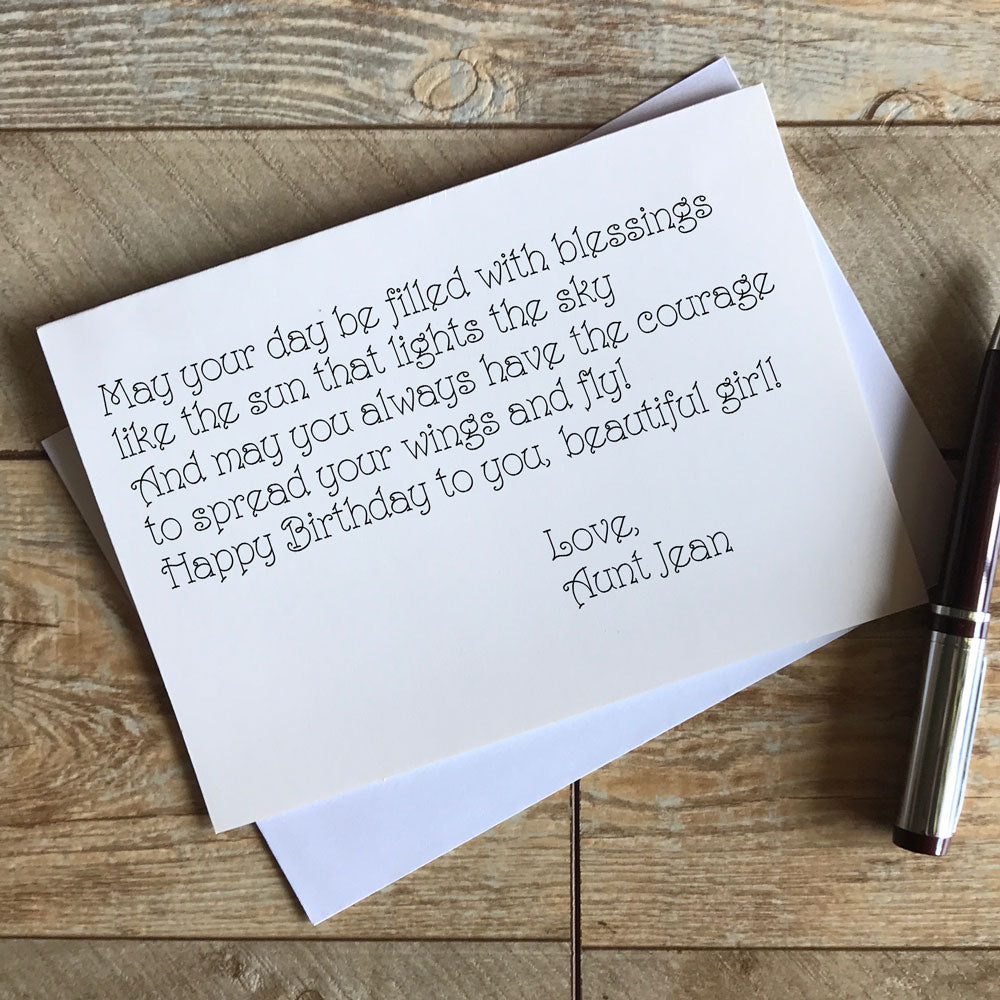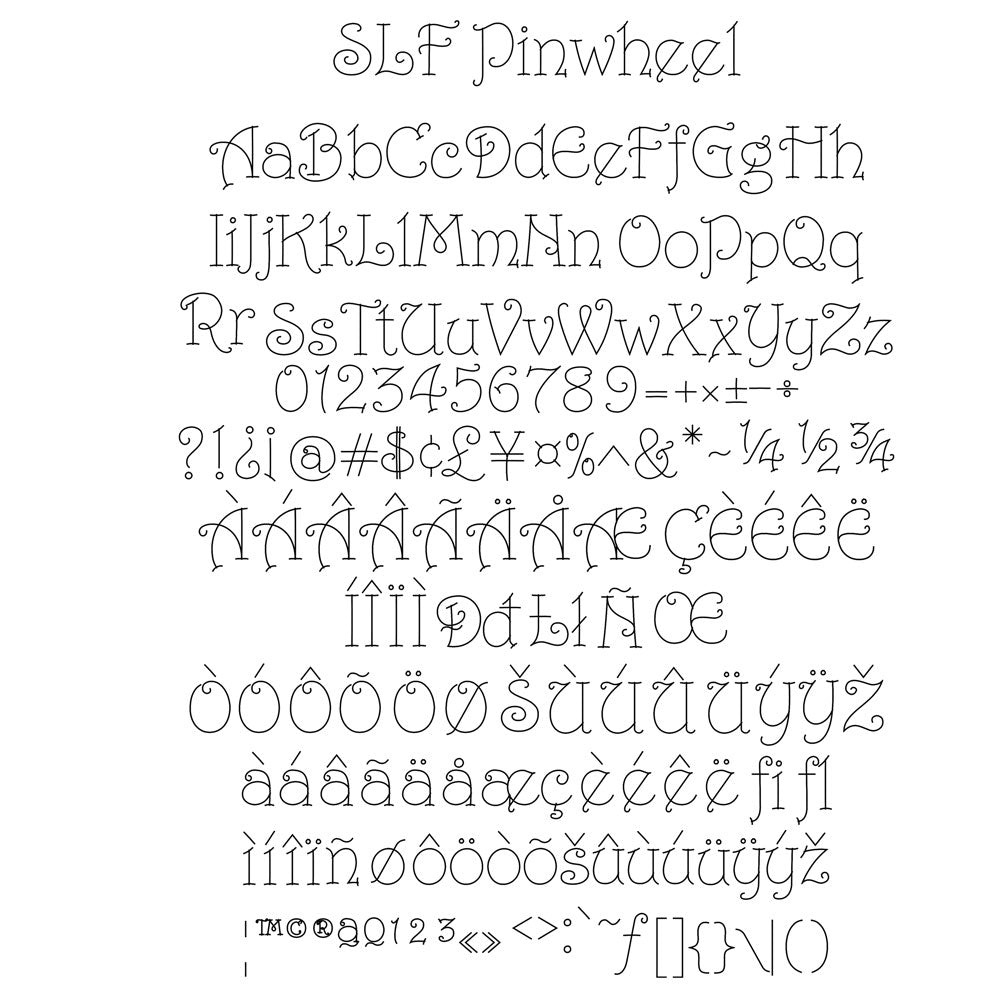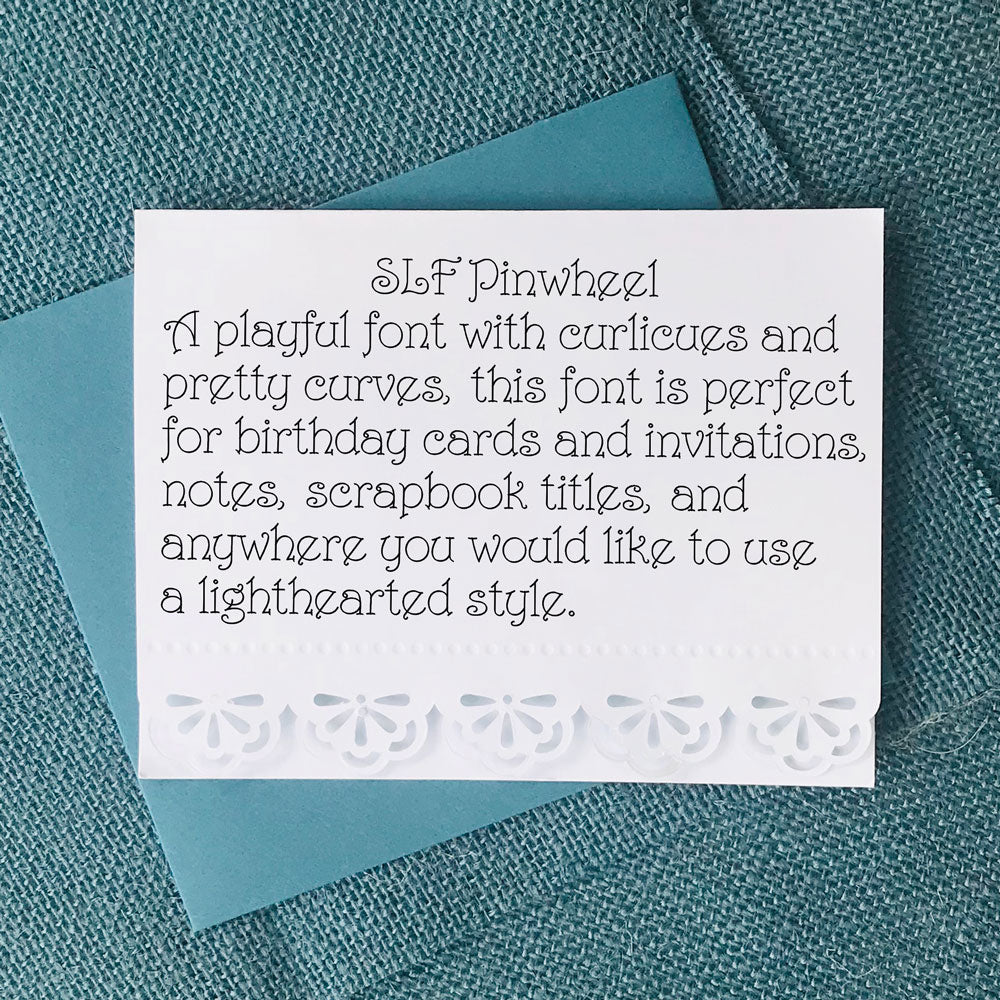
SLF Pinwheel is a playful single line print font full of curlicues and pretty curves. It’s perfect for cards and invitations, notes, scrapbook journaling, and any project that needs a lighthearted, whimsical feel.
This monoline font includes a complete character set with uppercase and lowercase letters, numbers, punctuation, symbols, and accented characters for multilingual support.
Perfect for:
• Greeting cards, invitations, and happy mail
• Scrapbook journaling and planner lettering
• Laser engraving (Glowforge, LightBurn)
• CNC engraving and routing
• Cricut engraving tool
• Silhouette sketch pens
• Pen plotters and Foil Quill projects